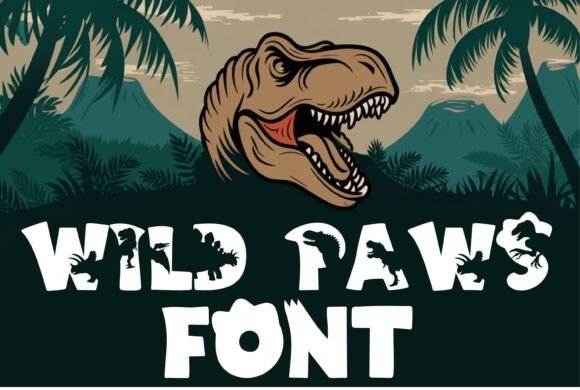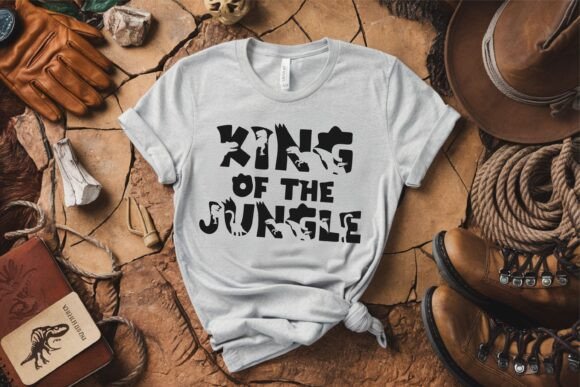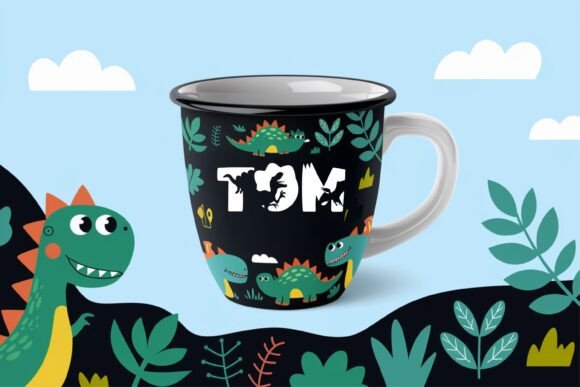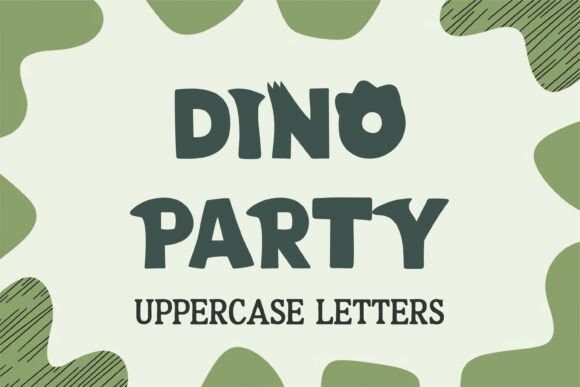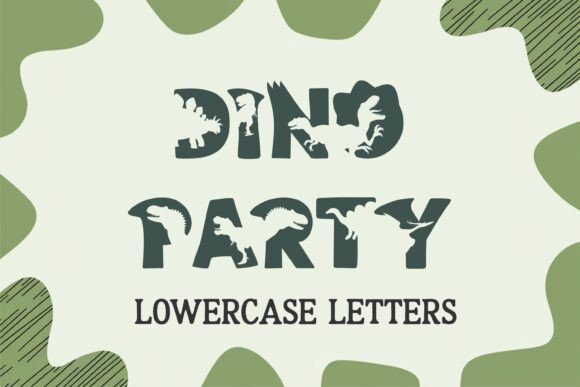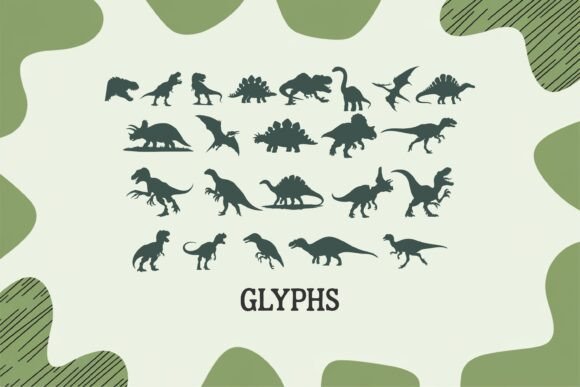
Unleash the Prehistoric Power of Dinosaur Wild Paws Font
Are you ready to take your crafting and design projects back to the Mesozoic Era? Look no further than the Dinosaur Wild Paws Font, a bold and exciting prehistoric typeface that’s perfect for making a statement. This unique font features dinosaur silhouettes inside each letter, adding a touch of wild adventure to any project.
What is Wild Paws Dinosaur Font?
Wild Paws Dinosaur Font is a specially designed font that combines the thrill of dinosaurs with the versatility of a bold, prehistoric typeface. Each letter, number, and symbol in this font features a silhouette of a dinosaur, carefully crafted to bring a sense of excitement and wonder to your projects. Whether you’re working on kids’ shirts, birthday decorations, adventure books, or crafting projects, this font is sure to make your creations stand out.
Key Features of Wild Paws Dinosaur Font
- Uppercase letters, numbers, and symbols: The font includes a comprehensive set of uppercase letters, numbers, and symbols, giving you everything you need to create eye-catching projects.
The versatility of Wild Paws Dinosaur Font is one of its greatest strengths. Here are just a few ideas to get you started:
- Kids’ shirts and hoodies: Add a prehistoric touch to kids’ apparel with bold, dinosaur-themed designs.
- Birthday decorations: Create eye-catching birthday decorations, such as banners, garlands, and party hats, that will transport your guests back in time.
- Adventure books and storytelling: Use Wild Paws Dinosaur Font to add a sense of excitement and adventure to your children’s books, comics, or storytelling projects.
- Crafting projects: Incorporate the font into your crafting projects, such as papercraft, scrapbooking, or DIY home decor, to add a unique and playful touch.
Why Choose Wild Paws Dinosaur Font?
With so many fonts available, why choose Wild Paws Dinosaur Font? Here are just a few reasons:
- Unique and eye-catching: The dinosaur silhouettes inside each letter make this font truly one-of-a-kind, ensuring your projects will stand out from the crowd.
- High-quality design: The font is carefully crafted with attention to detail, ensuring a professional finish in all your projects.